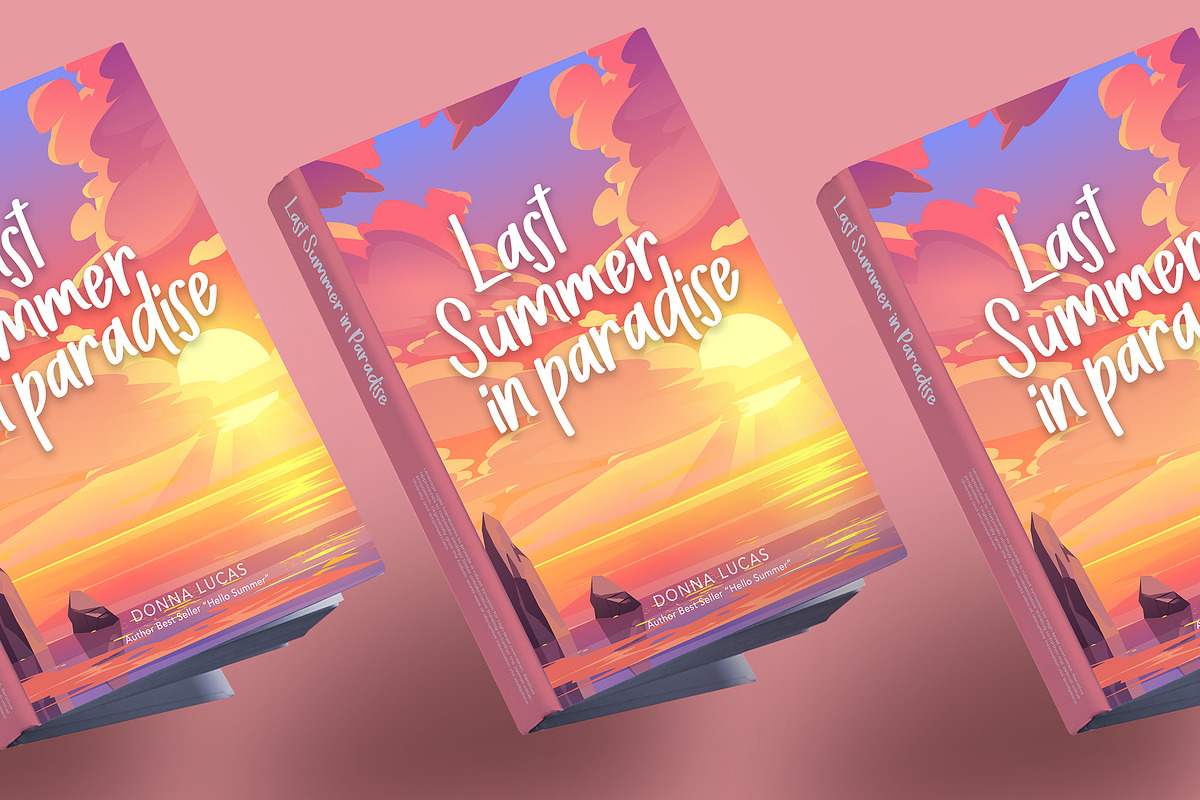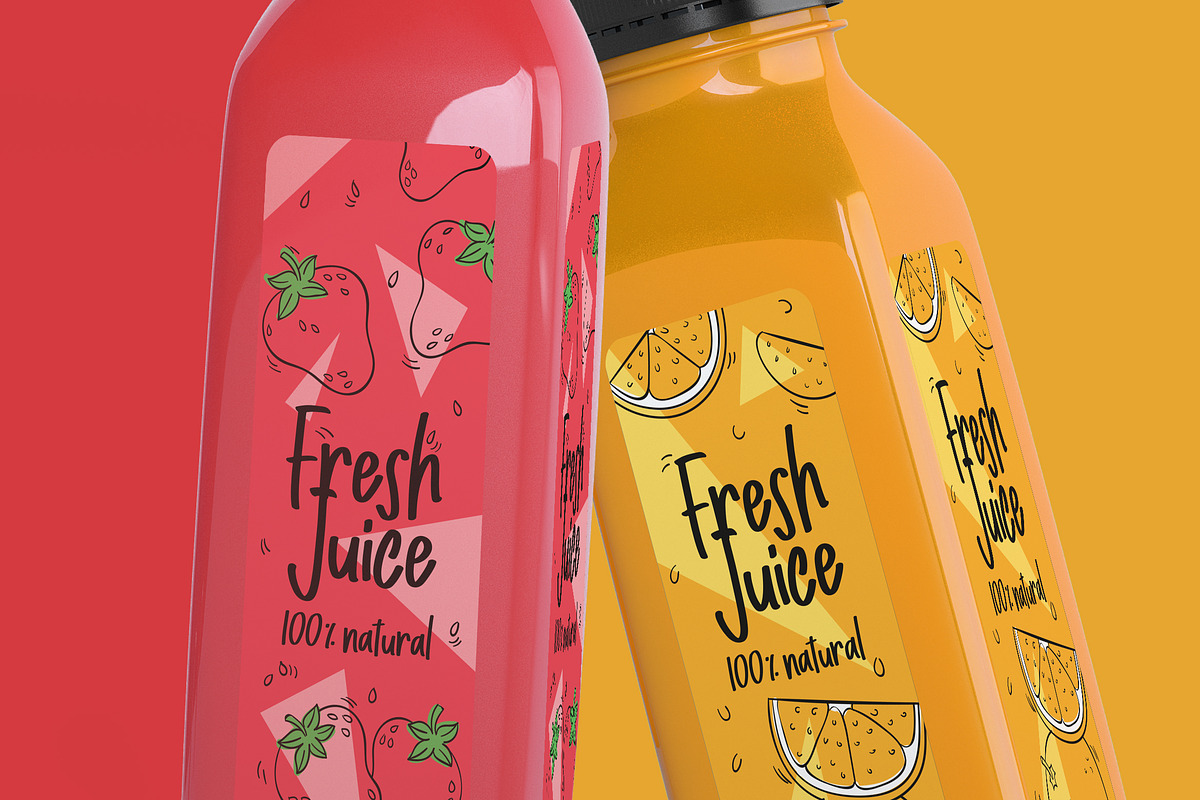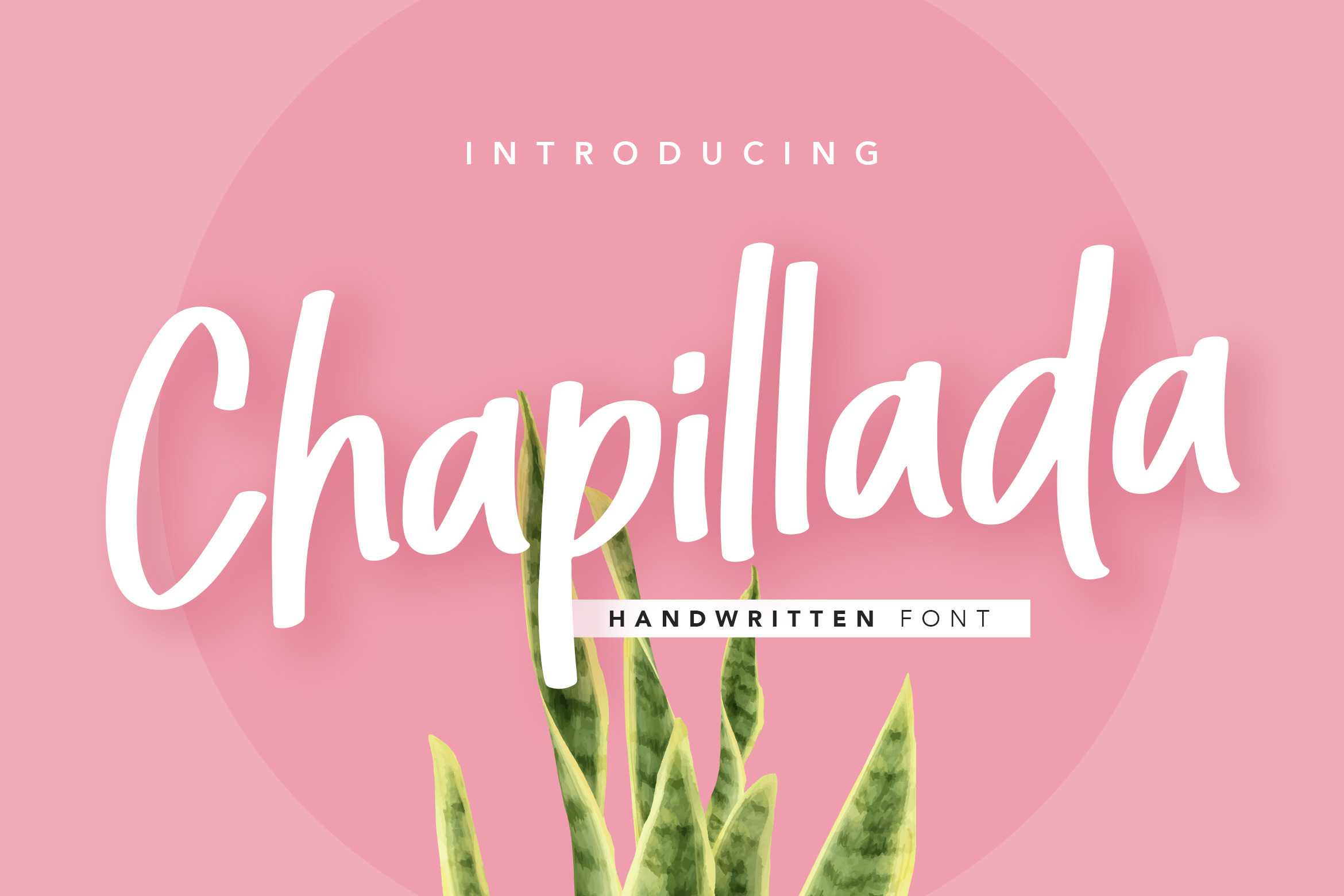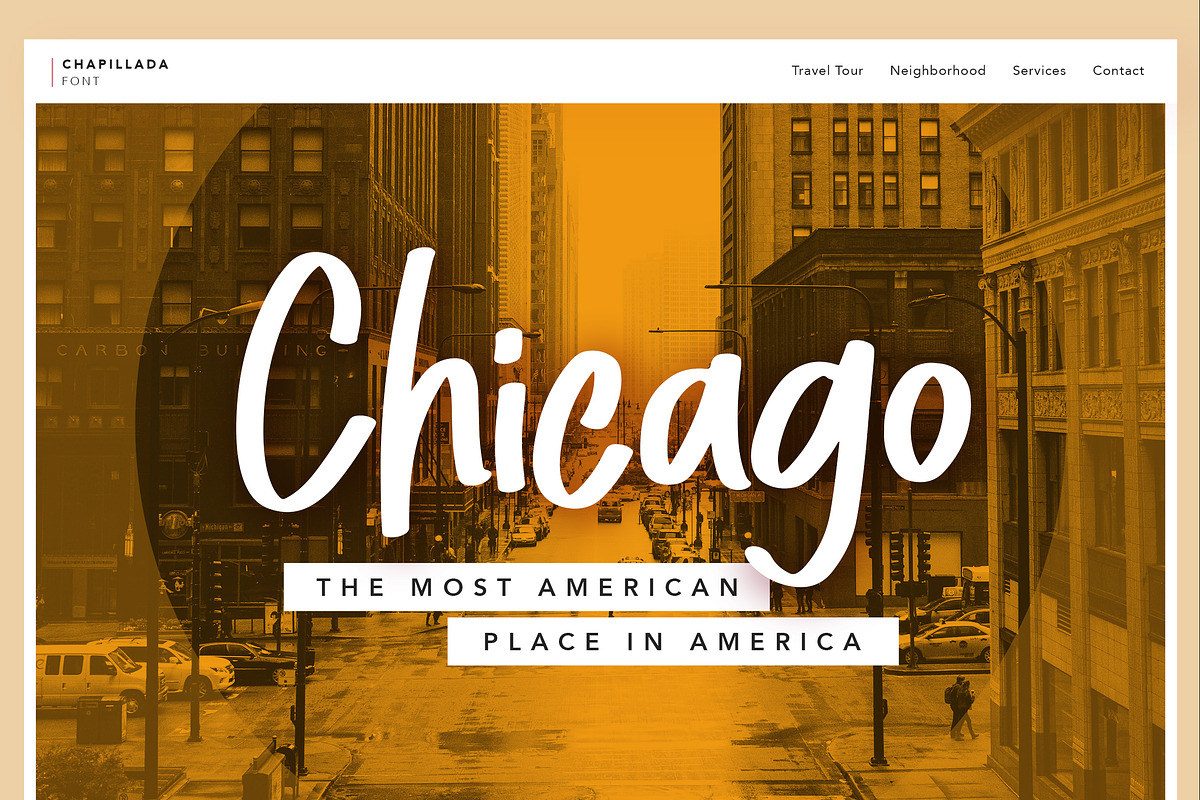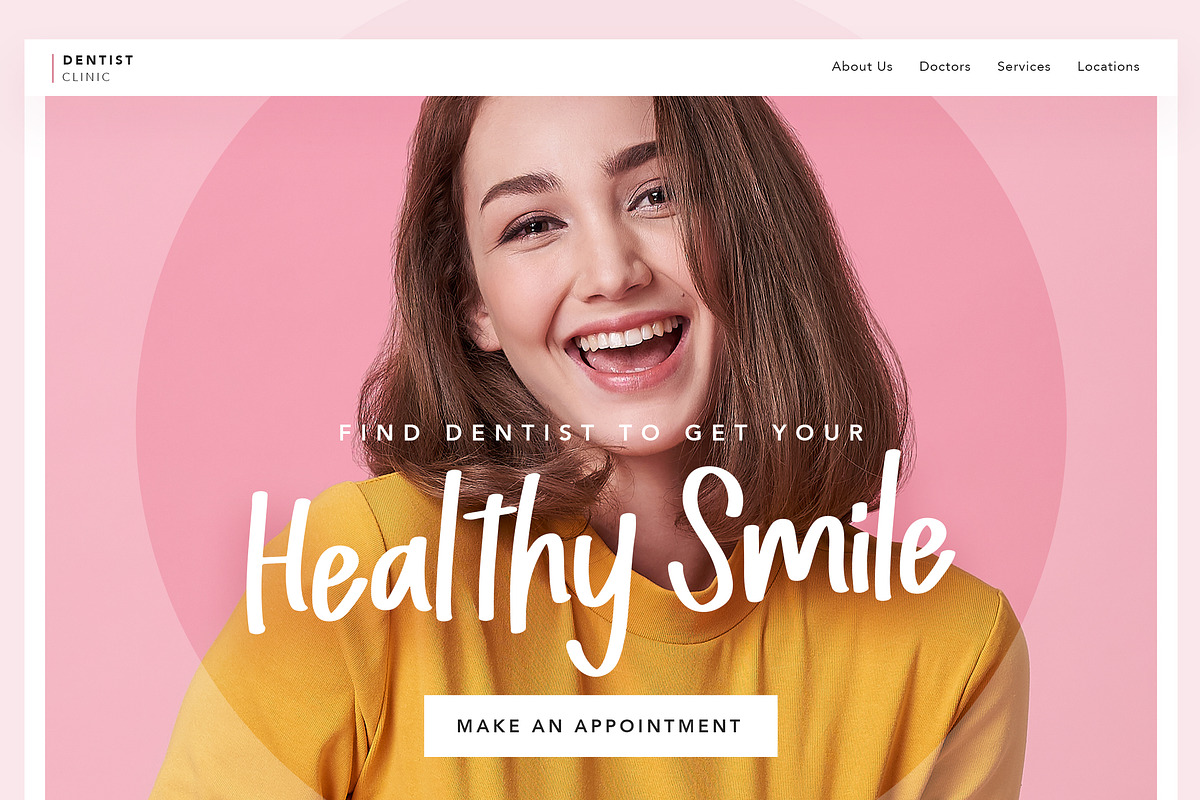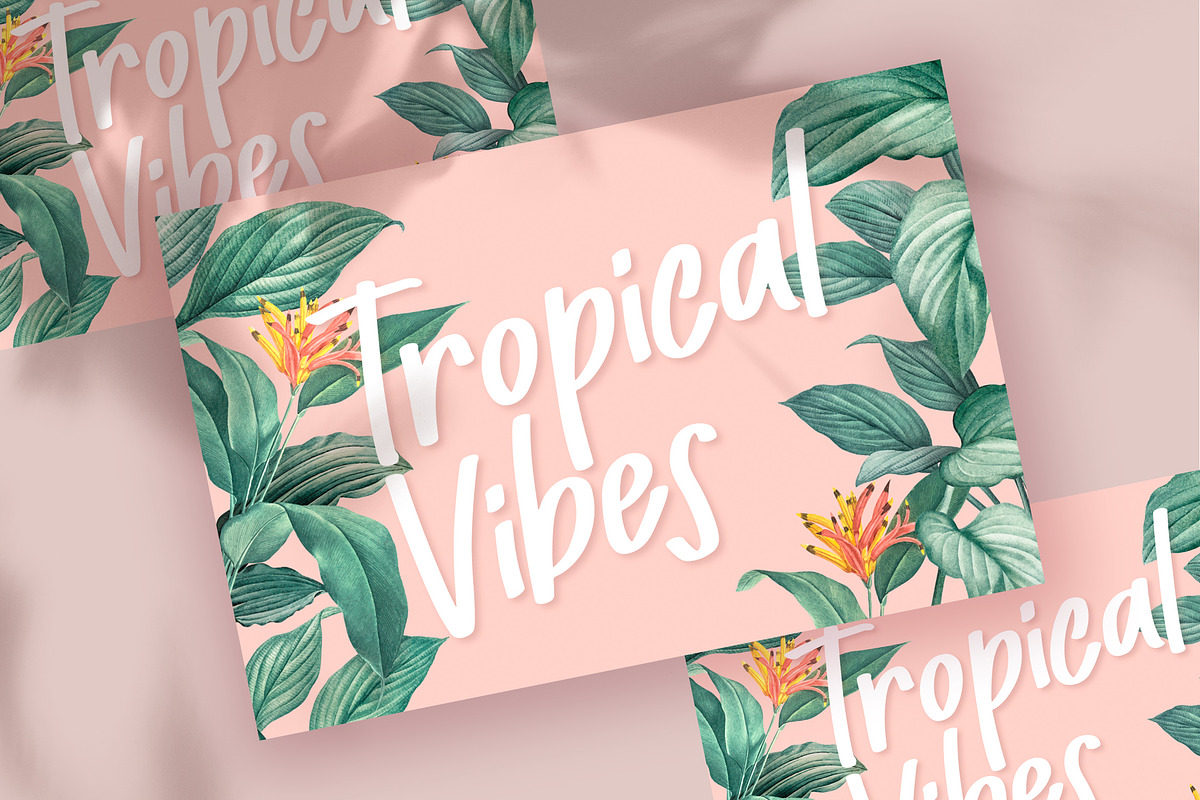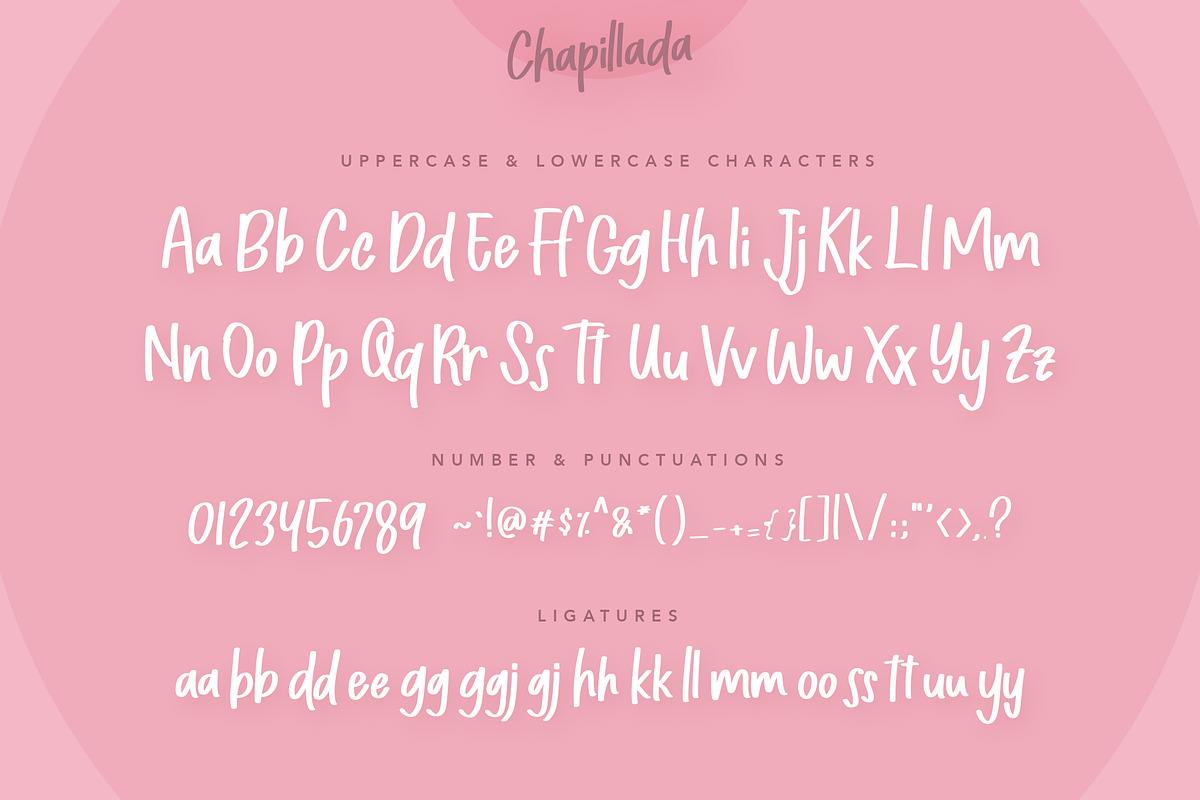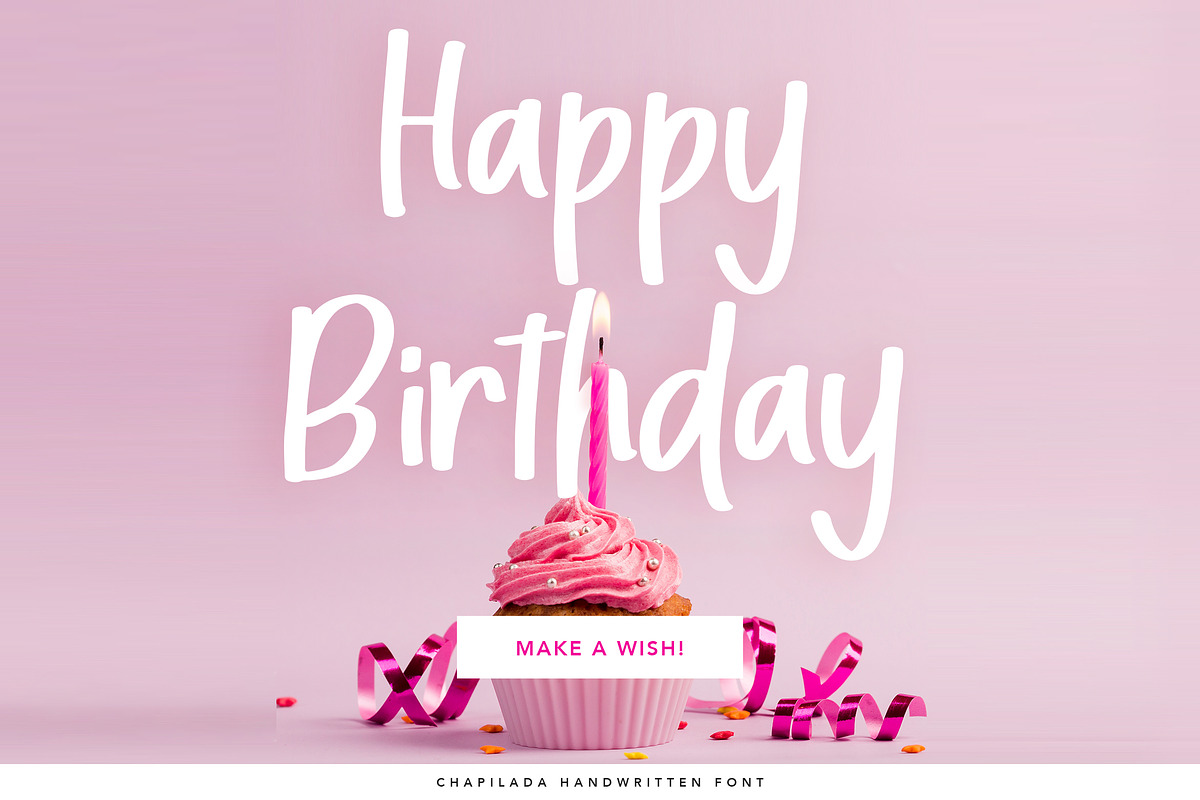
Chapillada Handwritten Font
Give your product, post or writing-related works a fresh appearance by using Chapillada, a handwritten font that will give you or your audience a sweet and cheerful taste of summer. Chapillada is suitable for any kind of display projects such as book cover, presentation, product packaging, logo, quoted text and many more. It’s also the best choice for fashion and fresh themed or text overlay to any background image that you want.